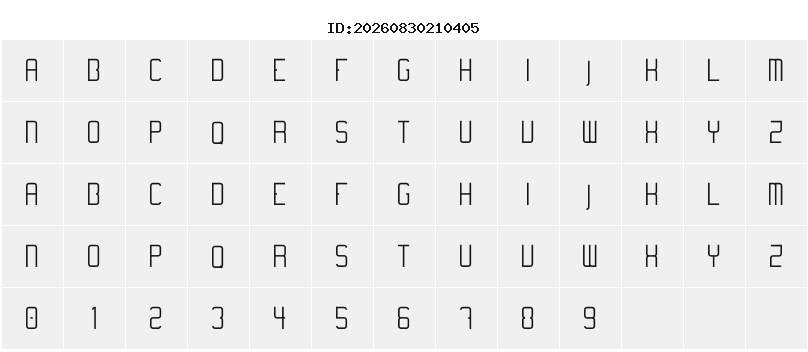
Temanotica Preview
• Font Name: Temanotica
• Full Font Name: Temanotica Regular
• Designer: Espen Kvalheim
• Manufacturer: Espen Kvalheim
About Temanotica.otf
Temanotica.otf is a modern, elegant sans-serif font designed for ultimate readability and visual harmony. Perfect for branding, headlines, web design, and print materials.